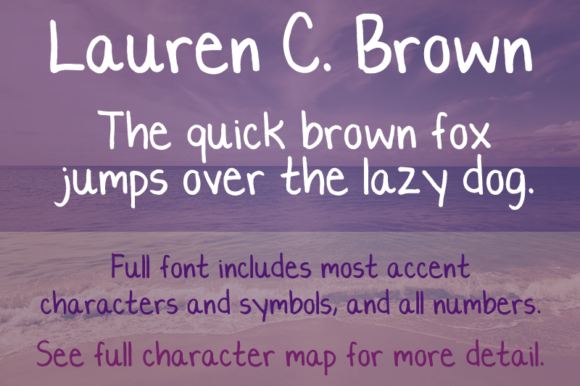
Lauren C. Brown Font
About Lauren C. Brown Font
Lauren C. Brown was one of the first fonts I created, in October of 2000. I had just begun my senior year of high school and my font obsession was in full force. This font was of my terrible high school handwriting, but somehow people liked it — it is my most popular font, to date! The font has since been updated with several more characters, including accents.